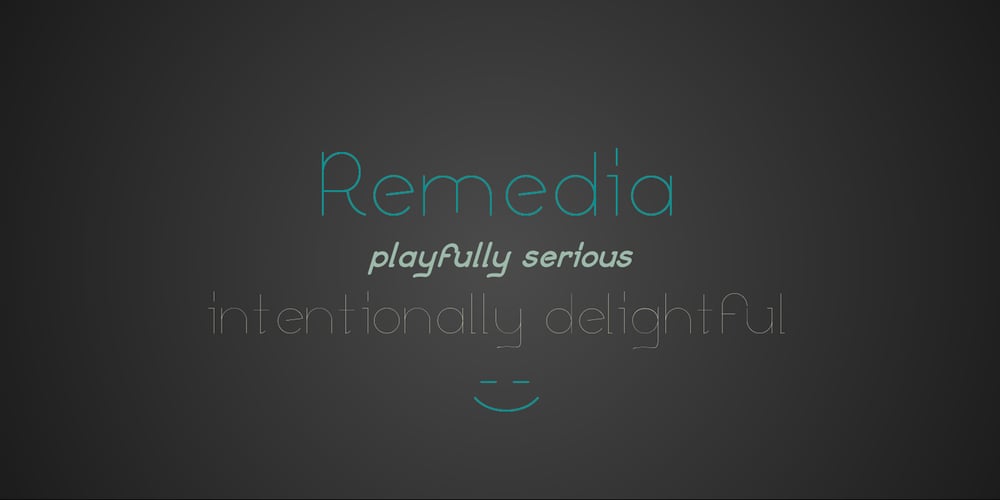
Remedia Font Family was designed by Kent Barns and published by Kent Barns. Remedia contains 18 styles and family package options. Remedia is a simple linear typeface with a wide range of font weights, from a hairline Ultra Light to Extra Black. Legible in body copy and a great starting point for a unique logo, Remedia is a creative typeface for everyday uses.